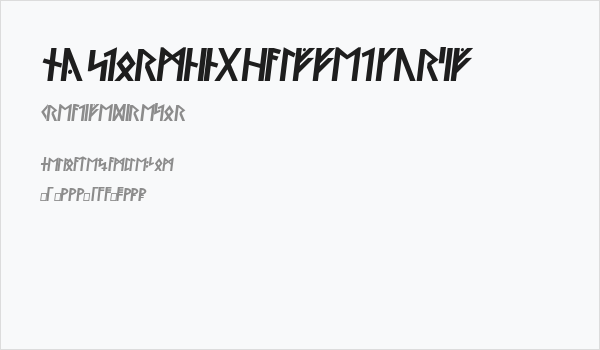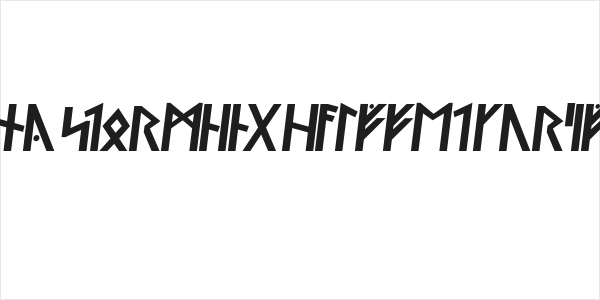
Ny Stormning Halvfet Kursiv Font
Ny Stormning Halvfet Kursiv Description
This font features a bold and angular design with a distinct geometric style. The characters are crafted with sharp edges and a consistent thickness, giving it a strong and impactful appearance. The uppercase and lowercase letters maintain a uniform height, contributing to a cohesive look. The numerals and special characters are designed to match the angular theme, ensuring visual harmony across all glyphs. The font's unique style is reminiscent of ancient runic scripts, making it ideal for projects that require a historical or mystical aesthetic.
| Proposed Projects | Ideal for fantasy-themed graphics, historical posters, video game titles, and branding that requires a mystical or ancient touch. |